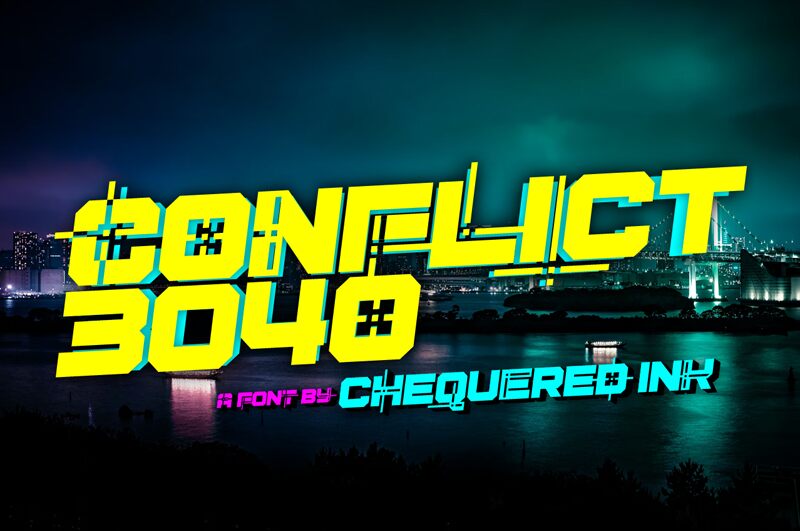
Conflict 3040 font is a free techno typeface made by Chequered Ink. Its geometric and angular shapes set its letters apart, along with its artistic yet vibrant overall style. When inspecting more closely, a modern look and influence can be detected in the font’s letters. Modern applications for this font include gaming and science fiction themes alongside tech branding and similar applications.
Some potential uses for this font include logo design, packaging and label design, posters, headlines, printed advertisements, TV or web commercials, video intros and end screens, promotional videos, and artistic prints.